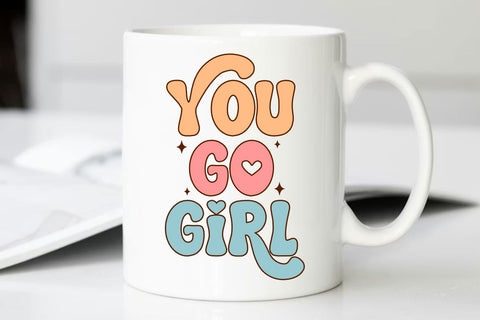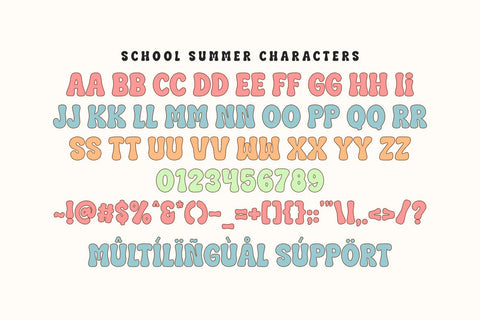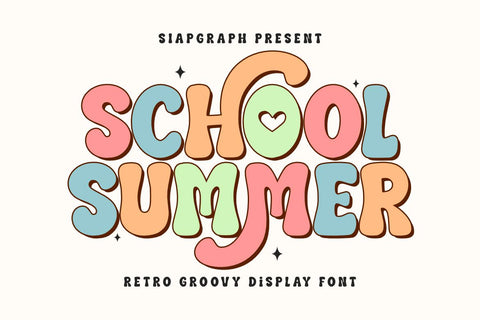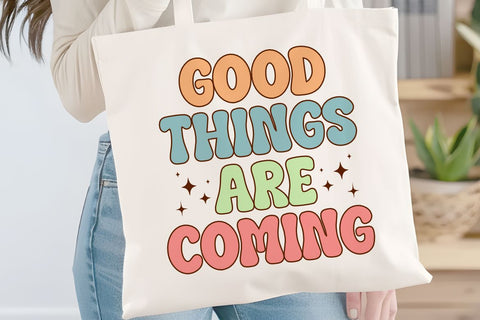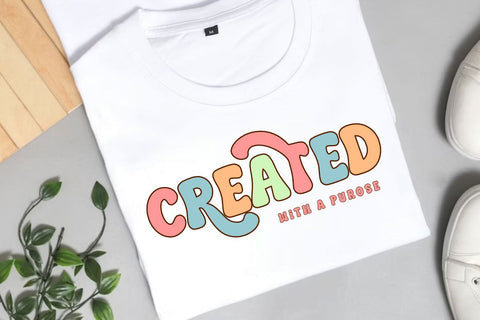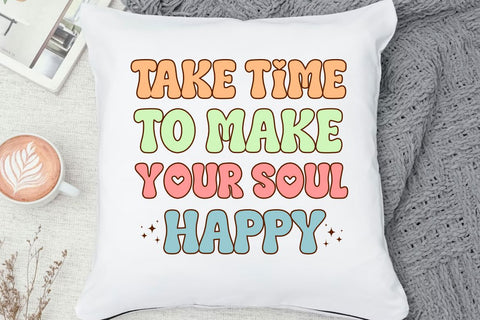
School Summer - Retro Groovy Font
Bring your ideas to life with School Summer, a adorable and retro groovy display font that exudes playfulness! Its soft curves and bold appearance are perfect for creating eye-catching headlines, posters, social media graphics, and branding. Add a dreamy touch to your designs with this delightful font that’s both fun and versatile.